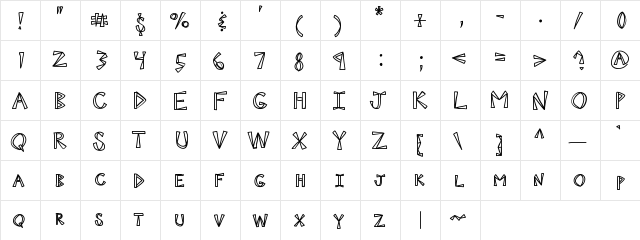
KBNINJAPOWER Medium
Design Context for KBNINJAPOWER Typeface
KBNINJAPOWER has the bold swagger of sports branding: strong, assertive letterforms designed to dominate headlines and jerseys alike.
Built for sports team identities, athletic apparel, event posters, and high-energy promotional material.
Pro Tip: KBNINJAPOWER thrives on contrast — try it large, bold, and tight against a clean background for maximum visual impact.